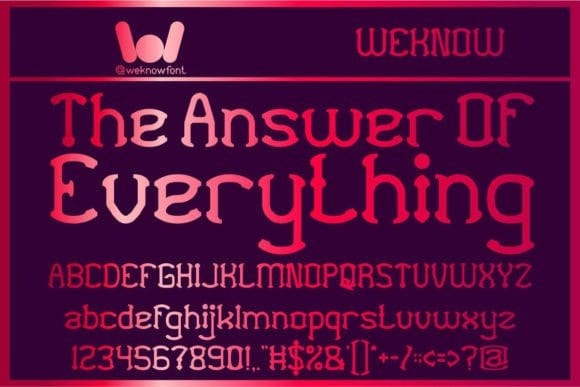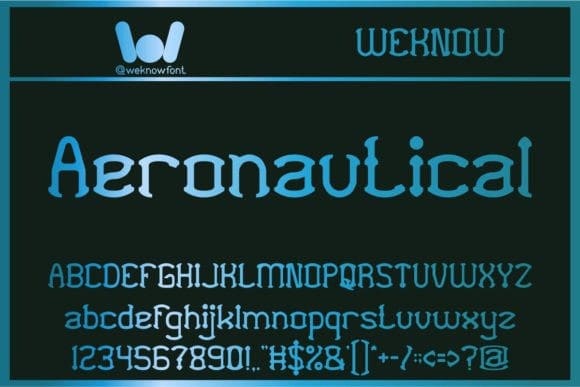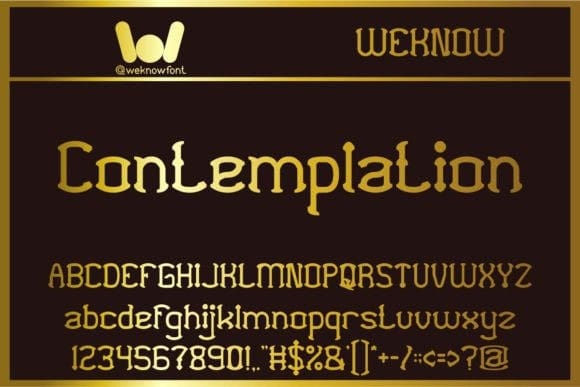
Contemplation Display Font
Contemplation Display Font is a modern Gothic display font. This typeface is suitable for logos, headlines, corporate and brand identity, the apparel industry, posters, movies, books, websites, or any design you wish to create!